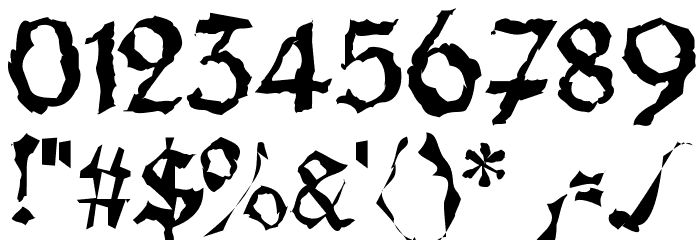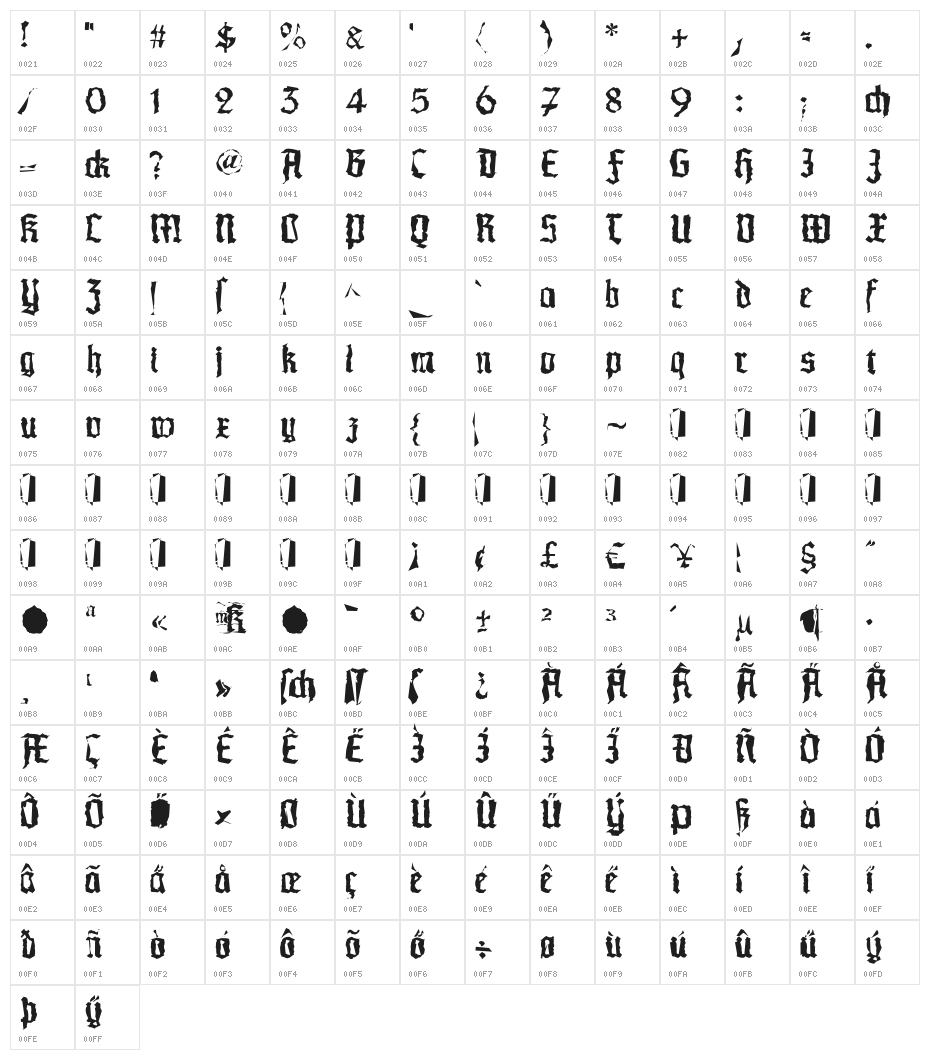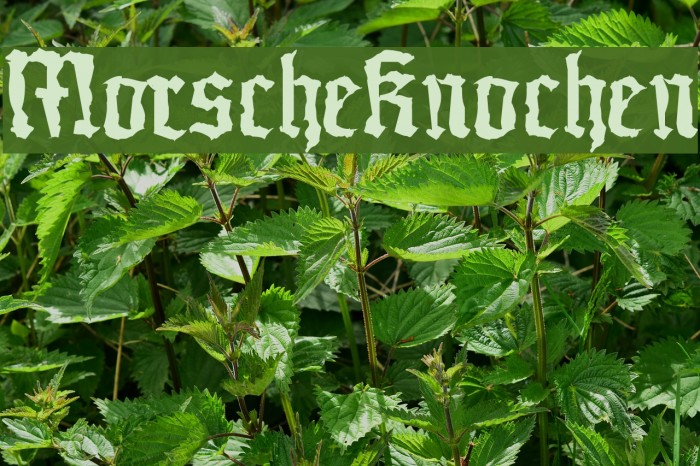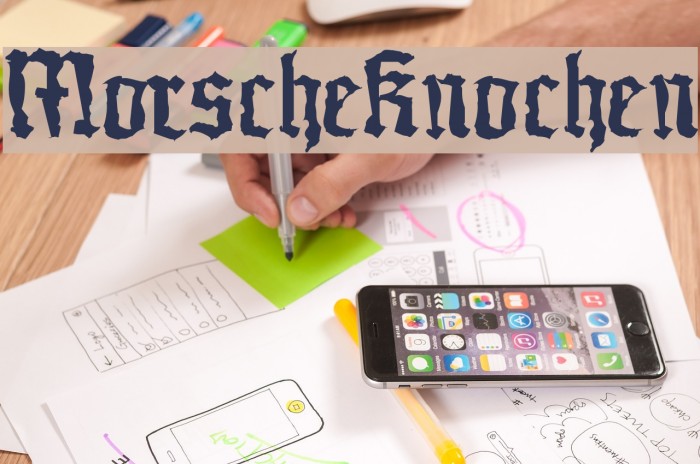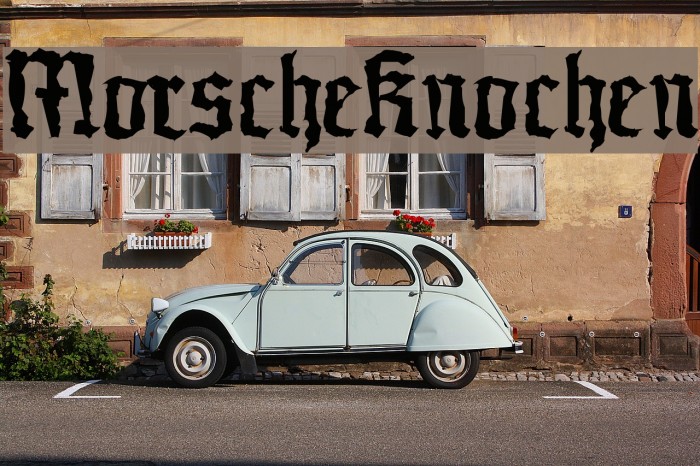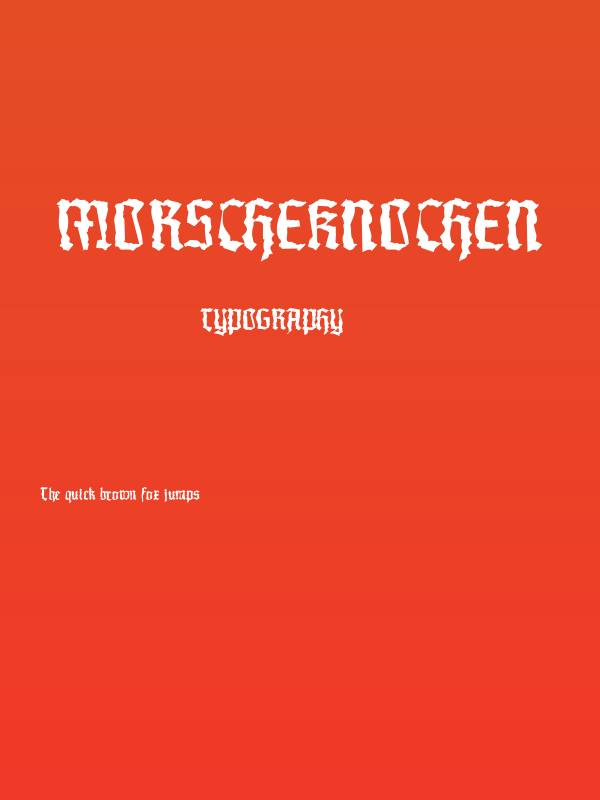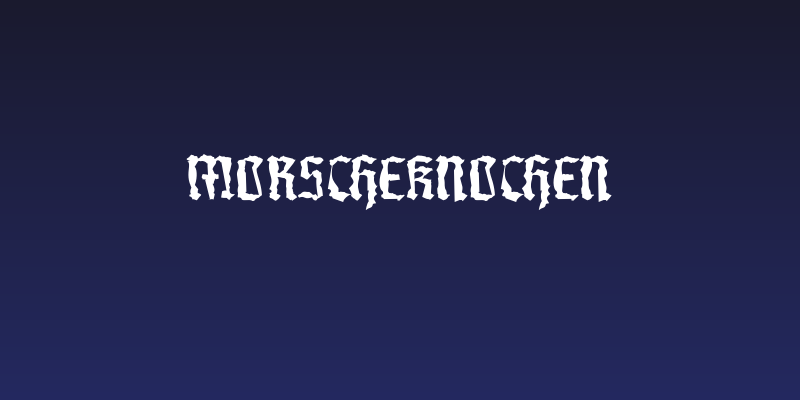
MorscheKnochen Font
MorscheKnochen Description
This font exhibits a bold and dramatic style, reminiscent of traditional Blackletter typefaces. The characters are sharply angular with a distinct gothic influence, featuring thick strokes and pointed serifs. The uppercase letters are particularly ornate, with intricate detailing that adds to the font's decorative appeal. The lowercase letters maintain the same stylistic elements, ensuring consistency throughout the typeface. Numbers and special characters are designed to match the overall aesthetic, making this font suitable for projects that require a historical or medieval touch.